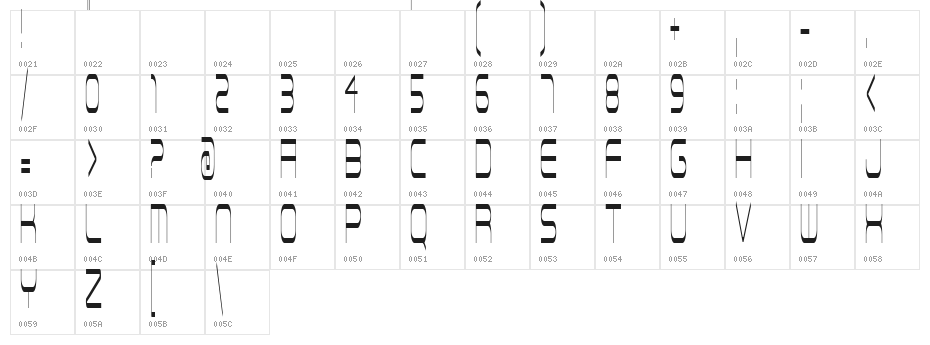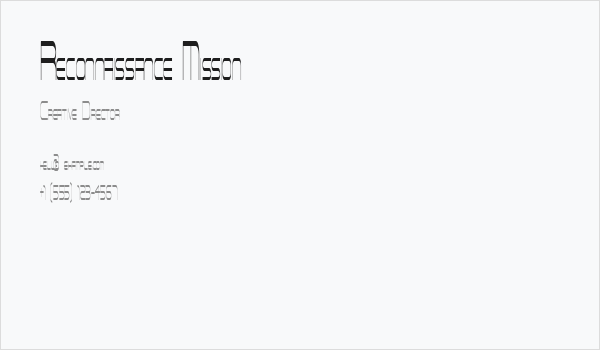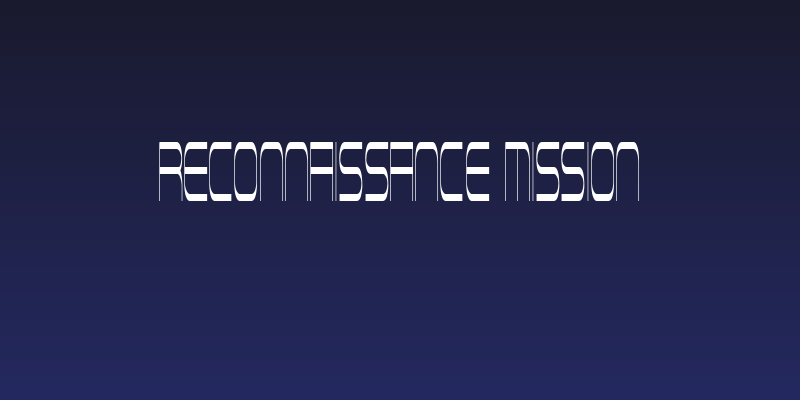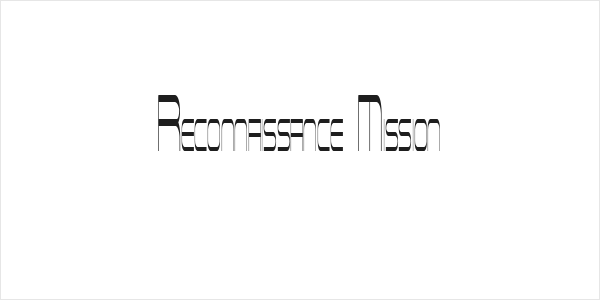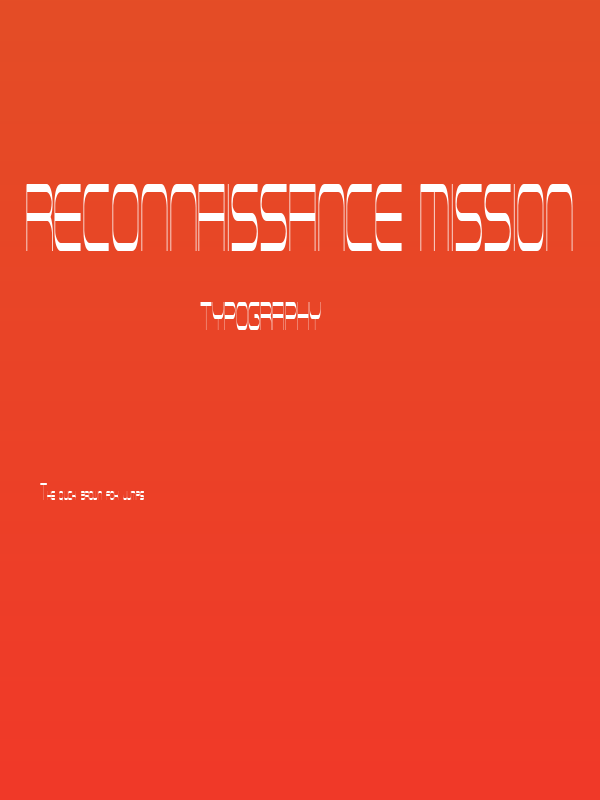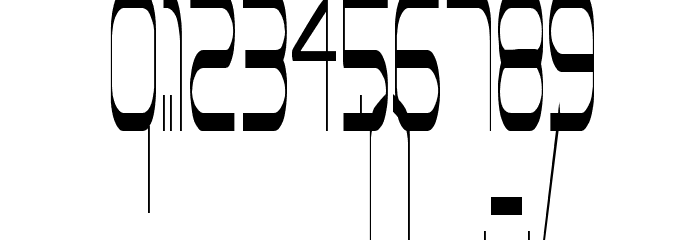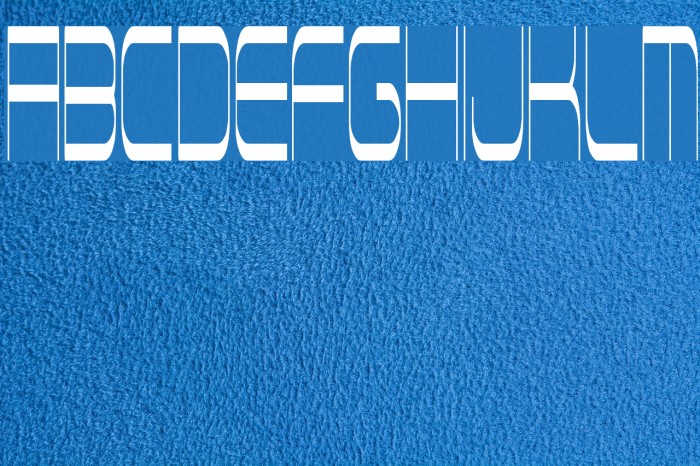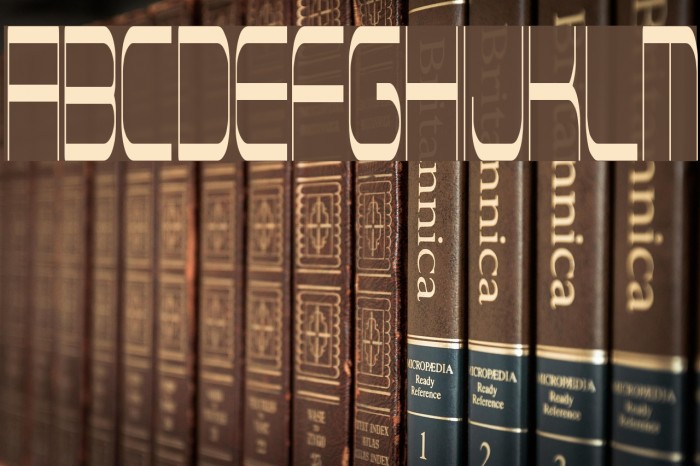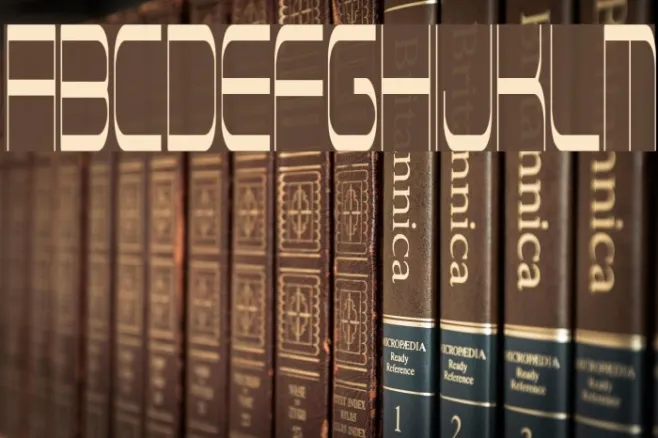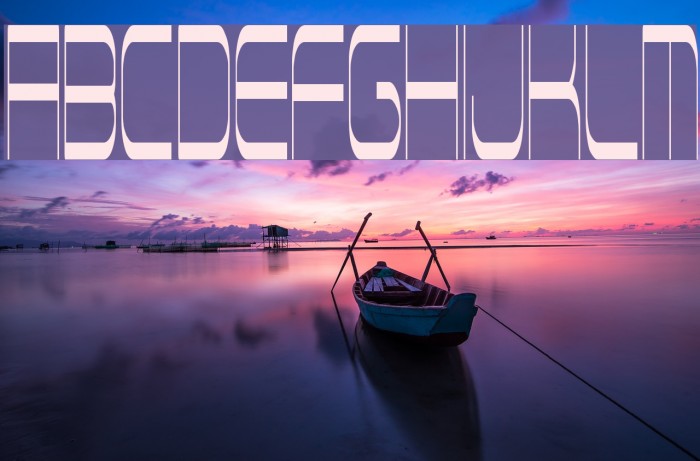
Reconnaissance Mission Font
Reconnaissance Mission Description
This font features a futuristic and geometric design, characterized by its elongated and narrow letterforms. The strokes are predominantly thin, with occasional thicker segments that create a high contrast within each character. The overall appearance is sleek and modern, with a distinct digital or sci-fi aesthetic. The characters are uniformly spaced, maintaining a consistent rhythm across the typeface. The unique structure of the letters, with their sharp angles and clean lines, makes it ideal for projects that require a contemporary and cutting-edge look.
| Proposed Projects | Ideal for technology branding, sci-fi movie posters, video game titles, and modern digital interfaces. |